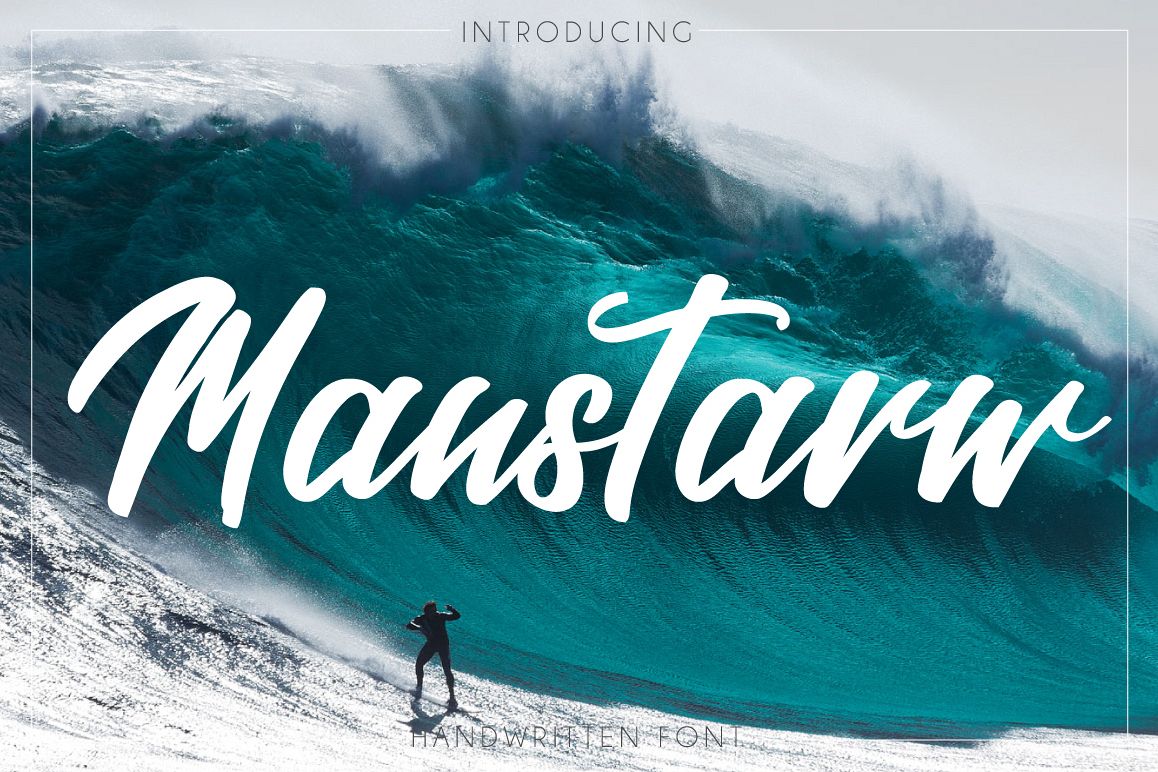
Manstarw
Manstarw - it's handwritten brush script with many different extras. This font is ideal for branding and decorate your any project.
This font are perfect for poster or your blog. Also with their help, you can create a logo or beautiful frame for your home. Or just use for your small business, book covers, stationery, marketing, magazines and more.